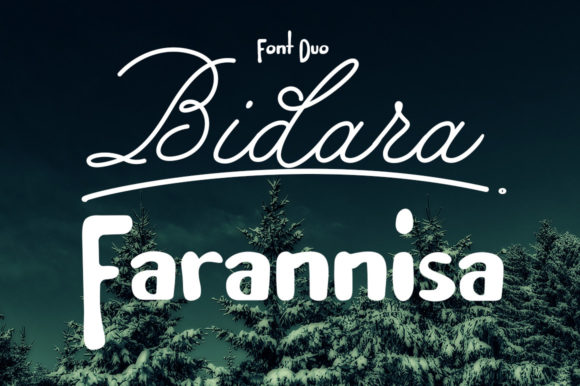
The Designer’s Delight: Unpacking the Bidara Farannisa Font
I’ll never forget the frustration of working on a project, hours pouring over design concepts, only to hit a roadblock: finding the perfect font. My client wanted something modern, playful, and versatile – a font that could effortlessly switch between traditional media and digital platforms. That’s when I stumbled upon Bidara Farannisa, a script and sans serif duo font that has since become my go-to for creative projects.
First Impressions: A Love Affair with Bidara Farannisa
Bidara Farannisa is more than just a font – it’s a design solution that checks all the boxes. Here’s what I love about it:
• ✨ Playful and modern vibe: Perfect for designers who want to add a touch of whimsy to their work.
• ✅ Versatility: Seamlessly transitions between traditional media, web design, and more.
• 💻 Script and sans serif duo: Offers flexibility and variety for any design project.
• 🌎 Multilingual support: Cater to a global audience with confidence.
The Not-So-Perfect: A Few Quirks to Consider
No font is perfect, and Bidara Farannisa has a few quirks to keep in mind:
• 🤔 Limited use in formal contexts: This font is playful, so it may not be the best fit for very formal or corporate designs.
• ⚠️ Glyph compatibility: Some glyphs may not work seamlessly across all platforms or software.
The Story Behind Bidara Farannisa
Bidara Farannisa was designed with the modern creative in mind. Its creator aimed to craft a font that was both playful and professional, capable of adapting to various design contexts. The result is a versatile font that has captured the hearts of designers worldwide.
What makes Bidara Farannisa unique? Its combination of playful script and modern sans serif elements, making it versatile for various design projects.
Is Bidara Farannisa suitable for body text? While it’s primarily designed for headings and titles, Bidara Farannisa can be used for body text in certain contexts, such as creative or informal publications.
Bidara Farannisa has become an essential part of my design toolkit, and I’m confident it will do the same for you. With its unique blend of playfulness and modernity, this font duo is sure to elevate your creative projects and make them stand out.